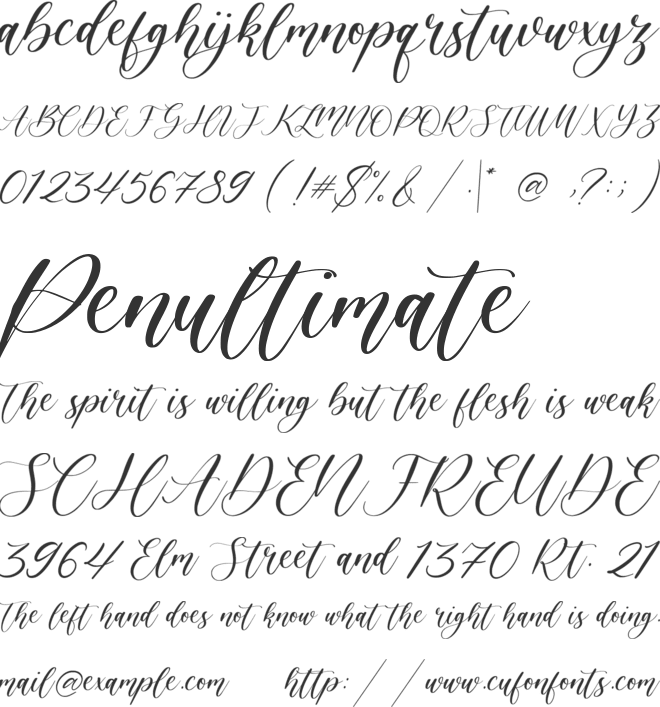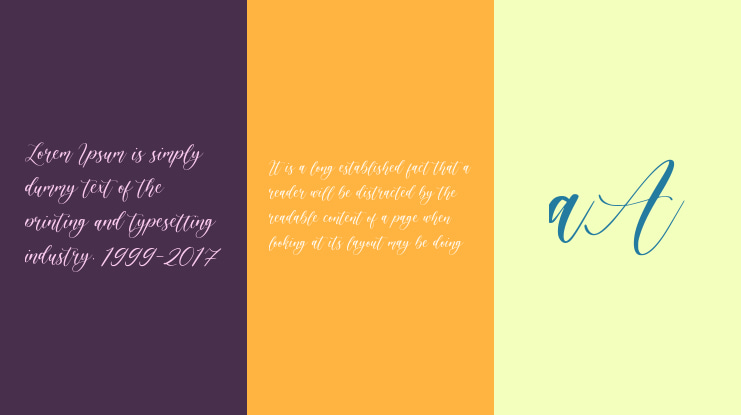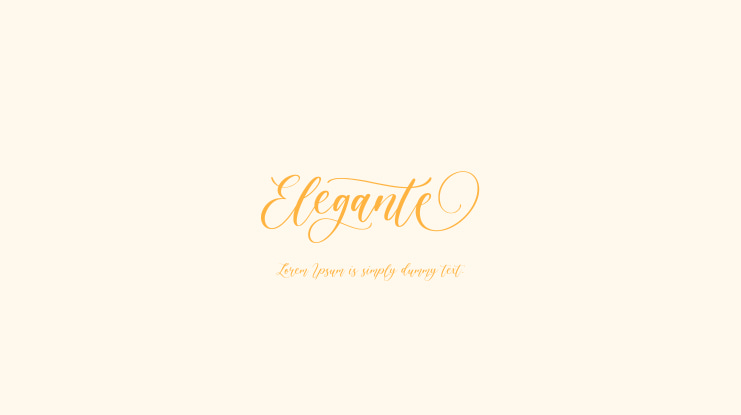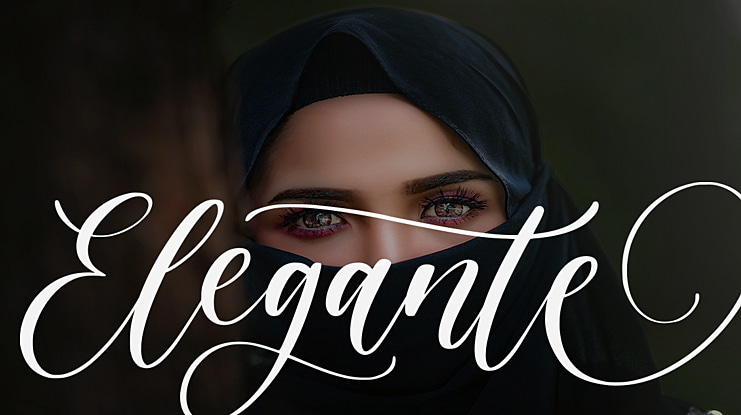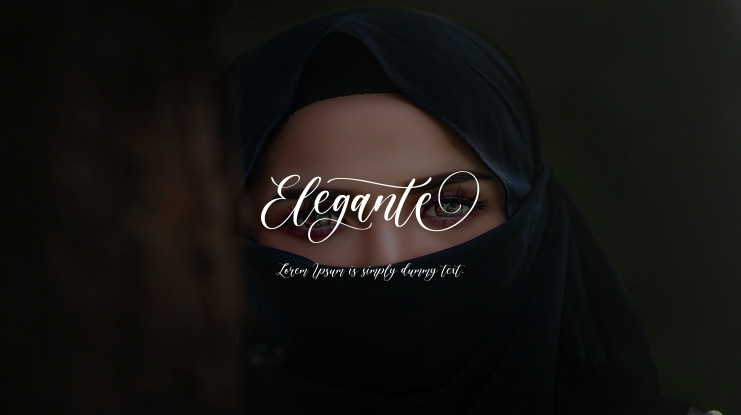
Elegante Font
Introducing by Balpirick Studio.
Proudly Present, Elegante Font.
Elegante is a Modern Elegant Font.
Elegante is perfect for product packaging, branding project, megazine, social media, wedding, or just used to express words above the background.